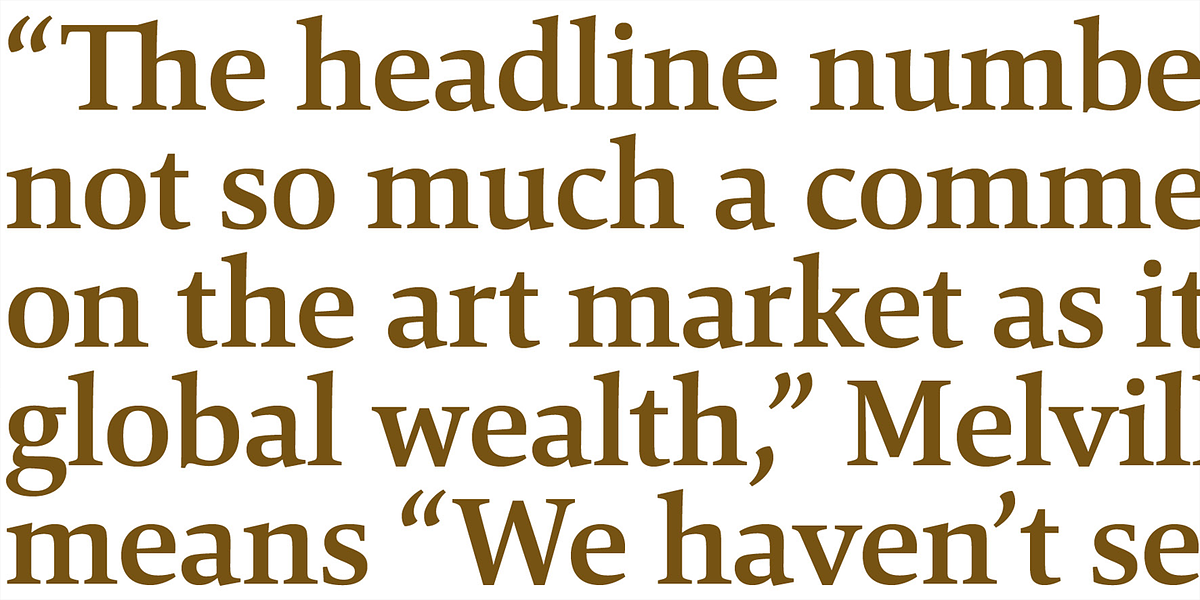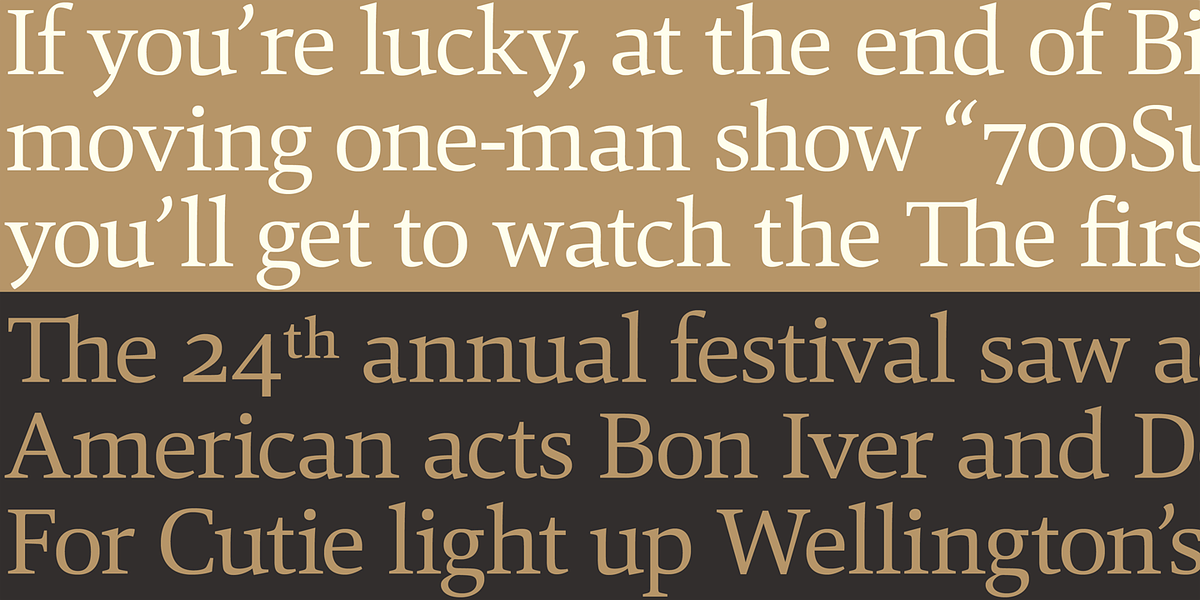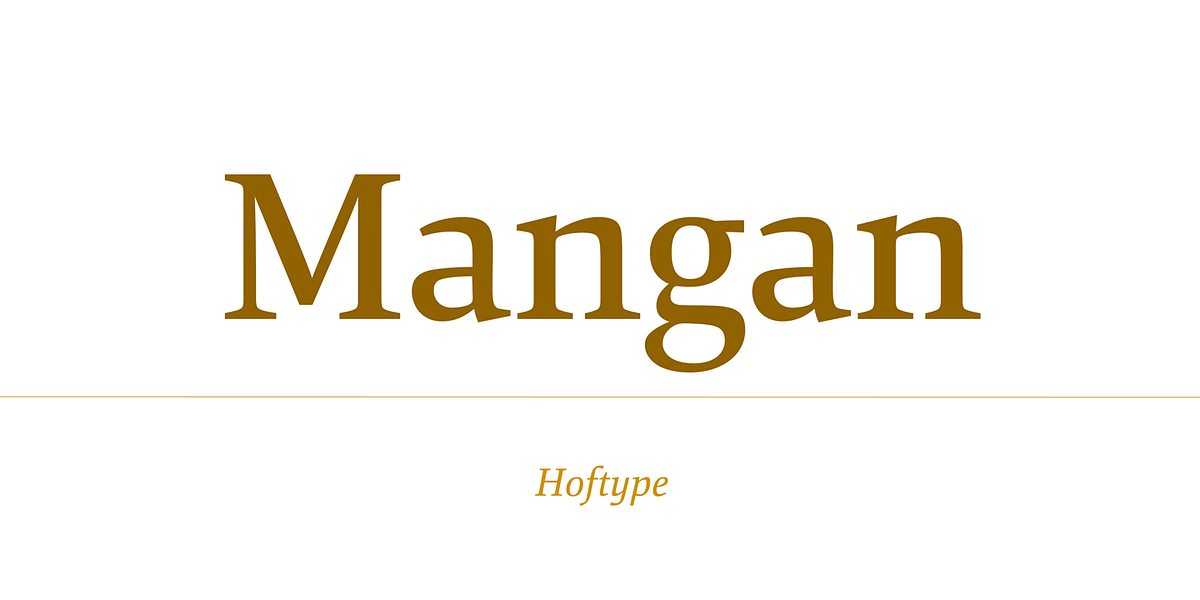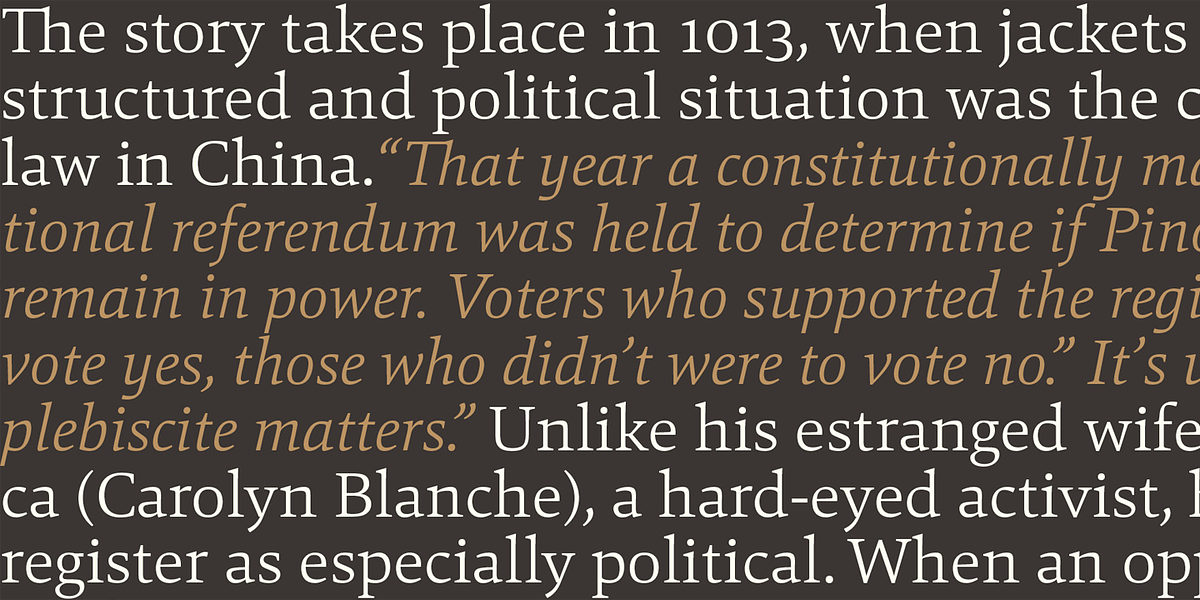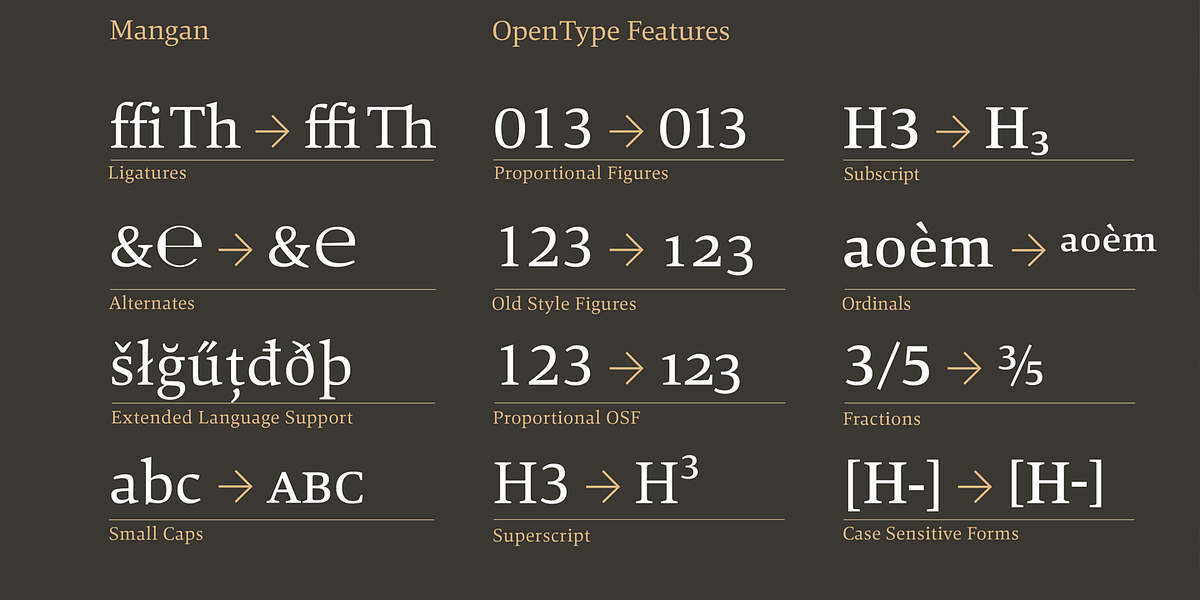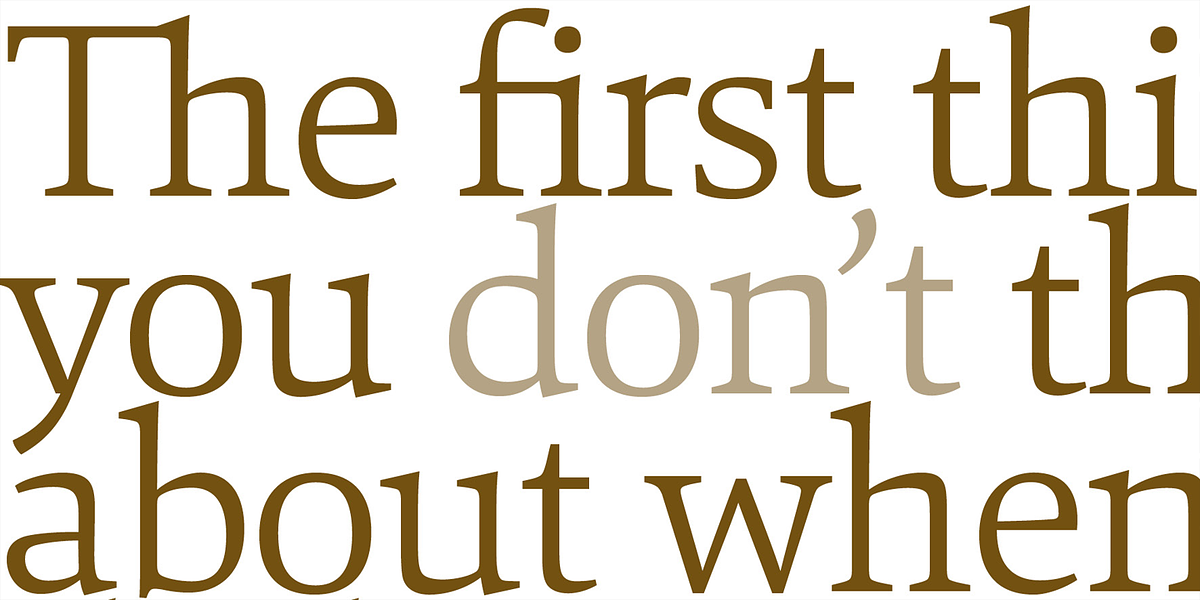
Mangan
Mangan is a transitional serif typeface designed for readability and functionality. It features a range of weights suitable for both body text and headlines. The extended language support makes it versatile for various projects. Mangan includes numerous OpenType features such as small caps, ordinals, ligatures, and different numeral styles.